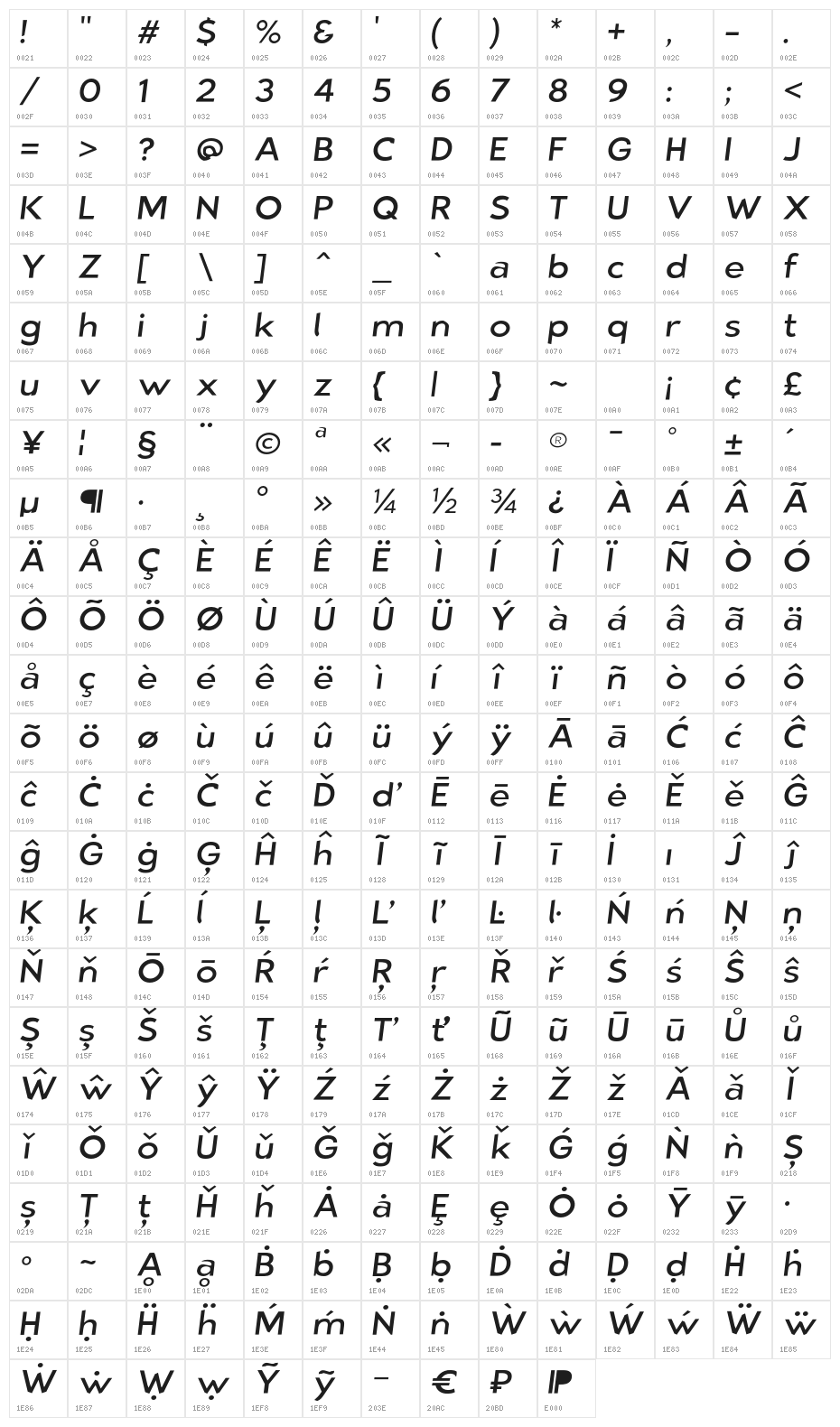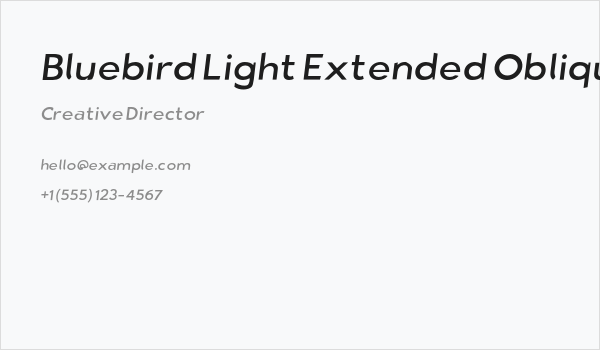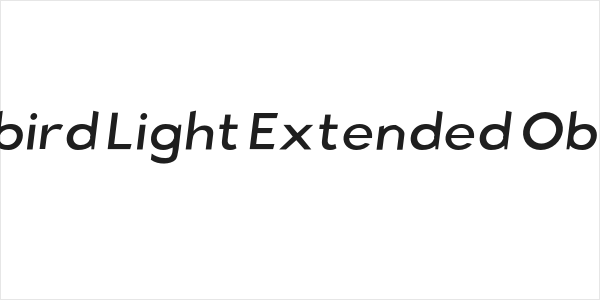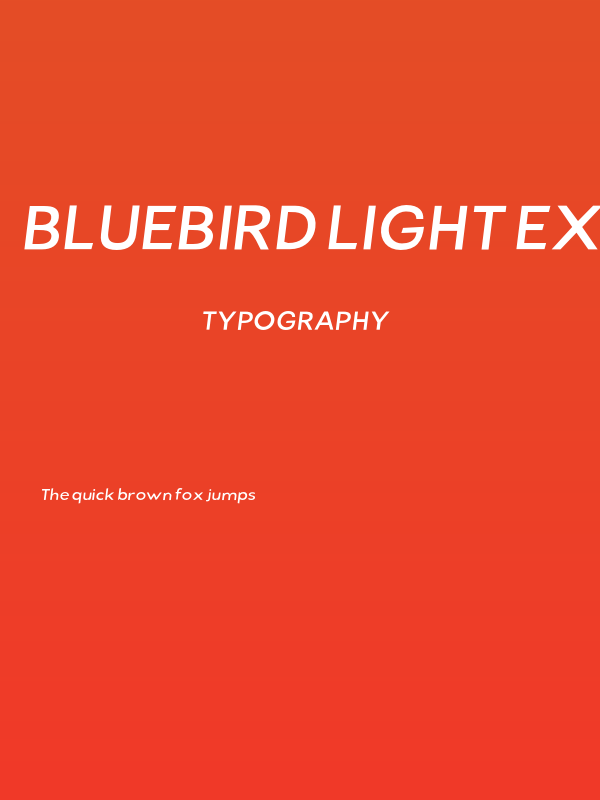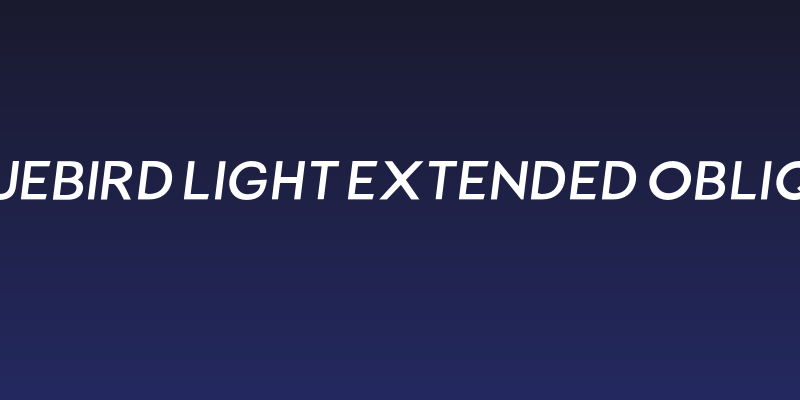
Bluebird Light Extended Oblique Font
Bluebird Light Extended Oblique Description
This font exhibits a sleek and modern design with an oblique orientation, giving it a dynamic and forward-leaning appearance. Its characters are extended, providing a sense of openness and readability. The strokes are light, contributing to an airy and elegant feel. The font maintains a consistent stroke width, resulting in low contrast, which enhances its clean and streamlined look. The overall style is contemporary, making it suitable for a variety of digital and print applications. The spacing between characters is normal, ensuring clarity and legibility across different sizes.